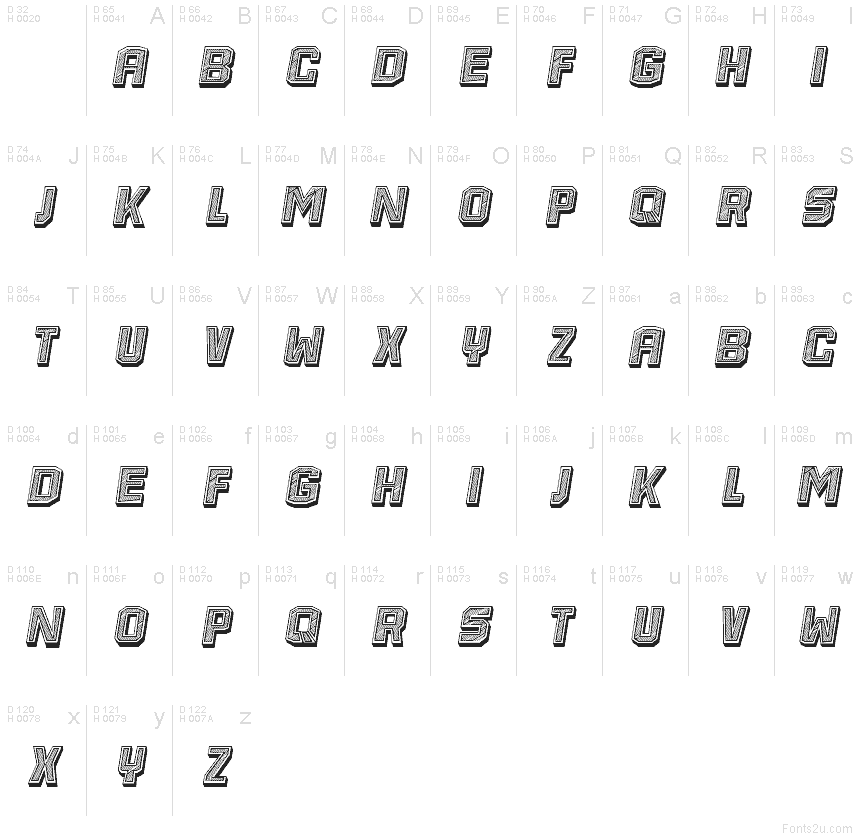
Guerrilla Italic
Guerrilla Italic font by Vladimir Nikolic is a free retro 3D display typeface that looks like it was pulled straight off a scratched gig flyer or a basement club poster. Chunky, slanted letters are packed with tight inner linework, so the text feels noisy and electric, while the blocky shadow gives it a rugged, stacked look. It’s bold, restless, and slightly rough around the edges, like ink pressed hard onto cheap paper.
Using Guerrilla Italic, your words don’t just sit on the page—they shout. This free font shines on poster headlines, event flyers, band or zine logos, retro game titles, bold packaging, and attention-grabbing social graphics. Keep it large to let the textured interior details breathe, and pair it with a simple sans serif from the Guerrilla family or a clean geometric font to keep the spotlight on its gritty 3D character.